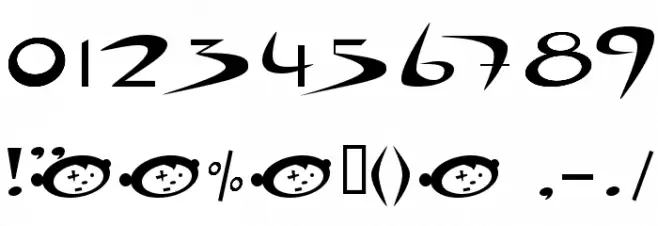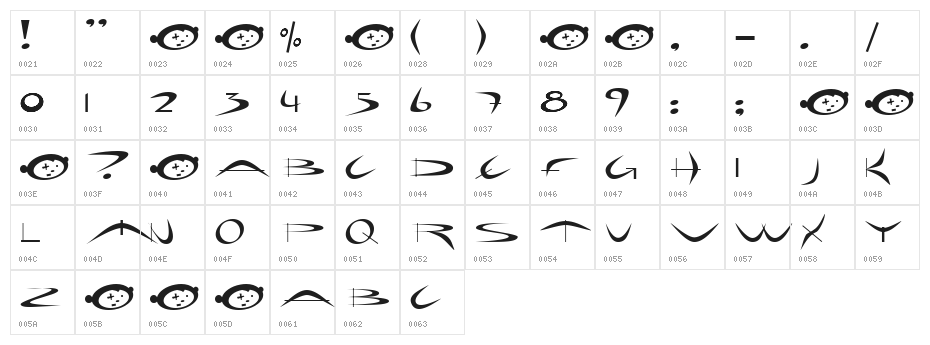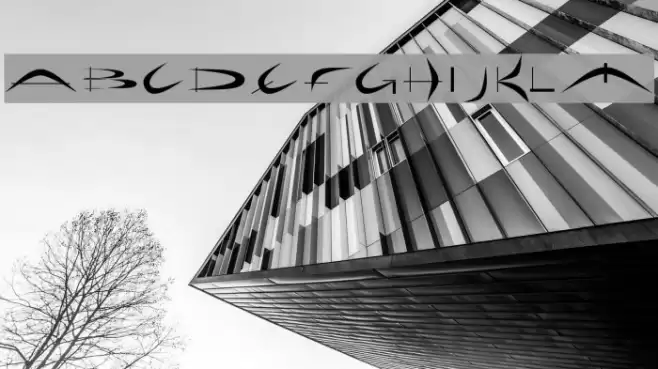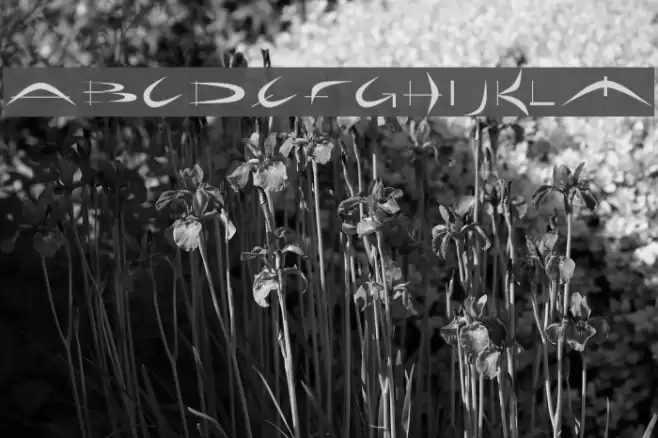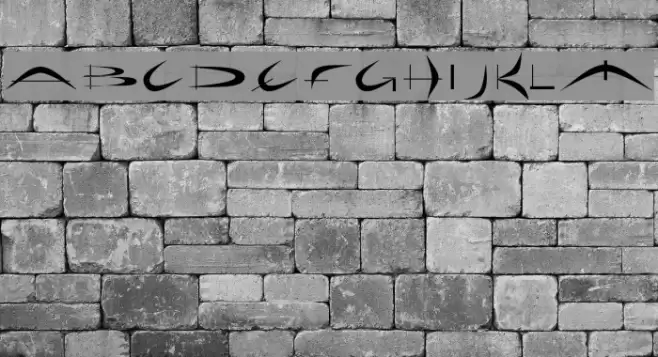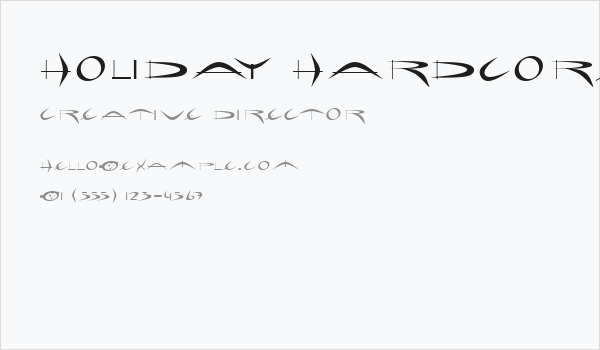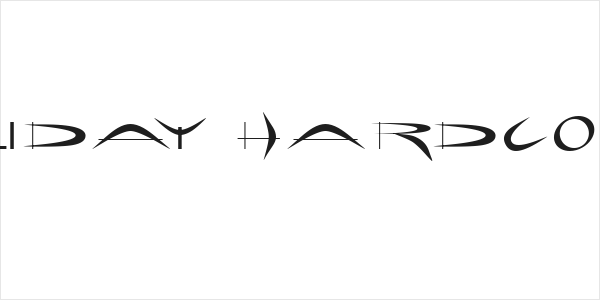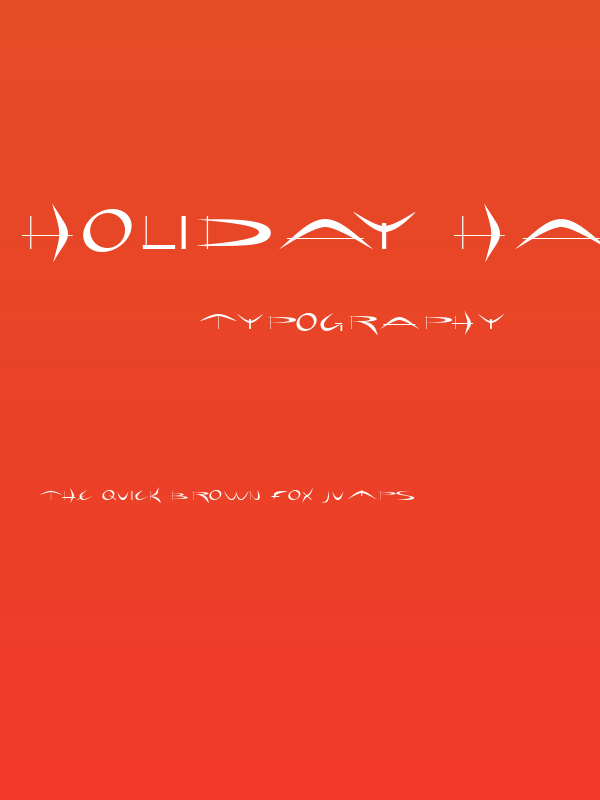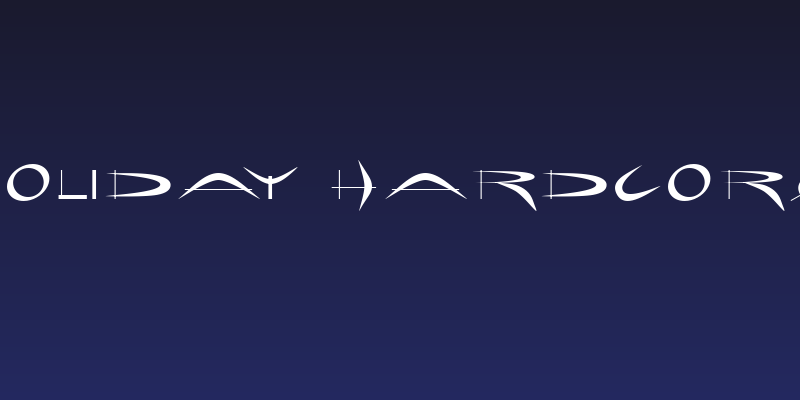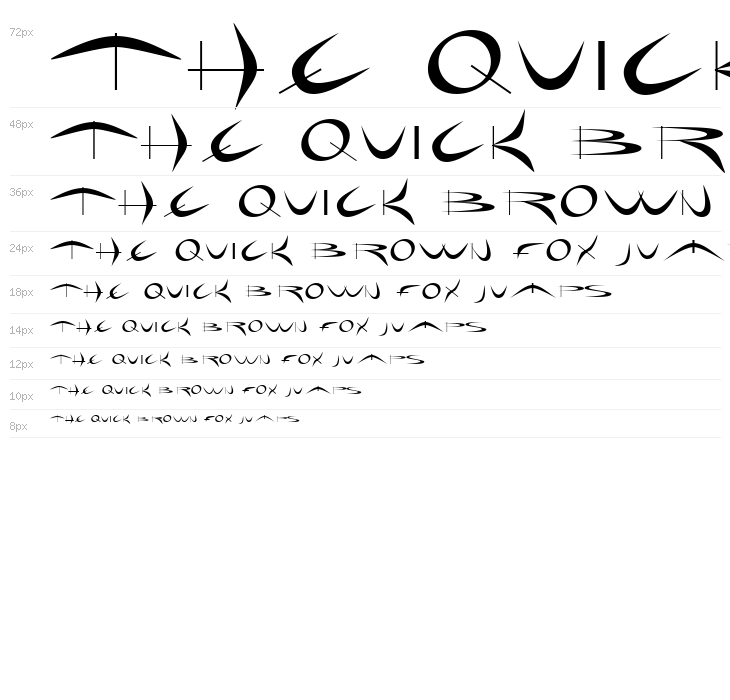
Holiday hardcore Font
Holiday hardcore Description
This font features a unique and edgy design with sharp, angular lines and a futuristic aesthetic. The characters are highly stylized, with elongated strokes and pointed serifs that give it a dynamic and aggressive appearance. The uppercase letters are particularly striking, with a bold presence that commands attention. The lowercase letters maintain the same sharpness, ensuring consistency across the typeface. Numbers and special characters are equally distinctive, incorporating the same angular motifs. This font is perfect for projects that require a modern and bold statement.